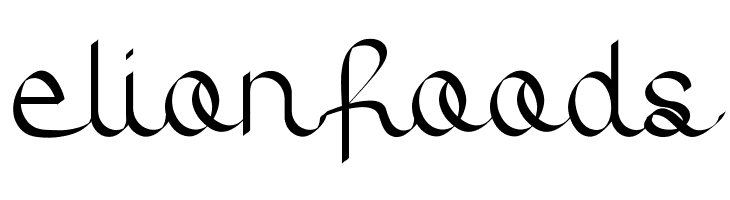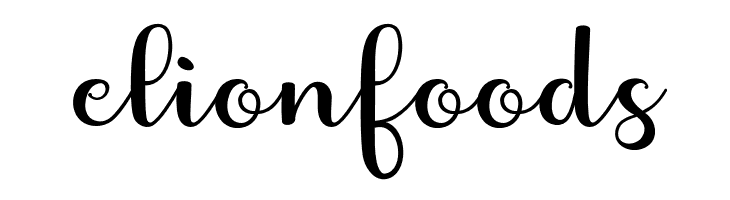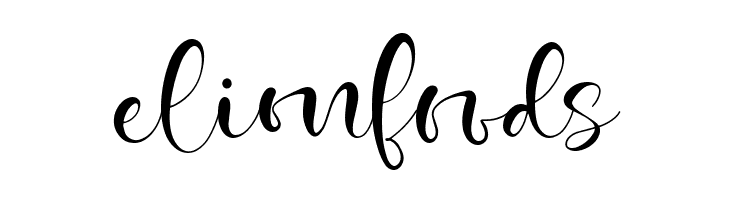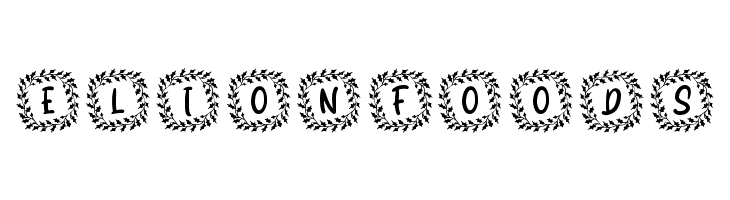
An elegant script font with decorative uppercase and bold lowercase letters.
An elegant script font with intricate, flowing letterforms and ornate uppercase characters.
A modern script font with elegant, flowing lowercase and bold uppercase letters.
A playful and decorative font with circular embellishments on uppercase letters.
A dynamic cursive font with elegant, flowing strokes and bold uppercase letters.
A decorative and modern font with ornate uppercase and clean lowercase characters.
A flowing, elegant cursive script with bold uppercase and smooth lowercase letters.
An elegant, flowing script font with ornate uppercase and smooth lowercase letters.
A decorative font with uppercase letters in leafy wreaths, perfect for festive projects.
A decorative font with bold uppercase letters encased in ornate circular borders.